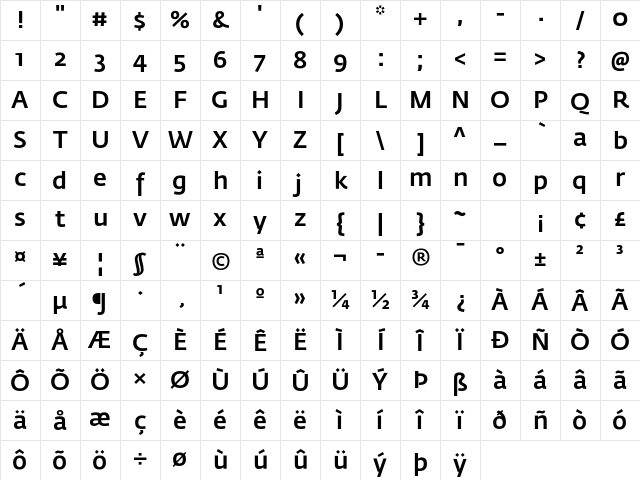
Fedra Sans Std Medium
Foundry: Peter Bilak (www.typotheque.com)
Designer: Peter Bilak (www.typotheque.com)
Design Context for Fedra Sans Std
Fedra Sans Std is a composed and adaptable typeface that performs quietly and consistently across a wide range of design contexts.